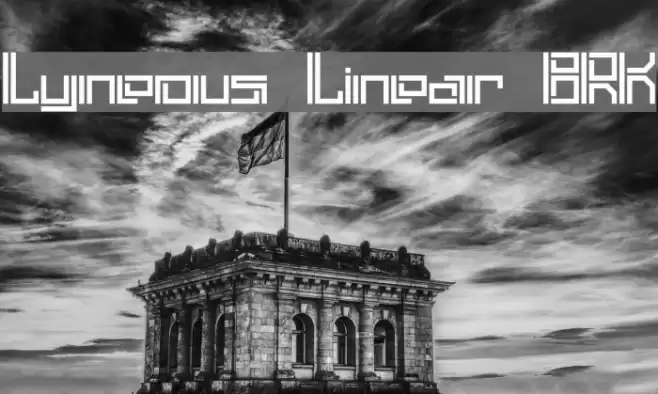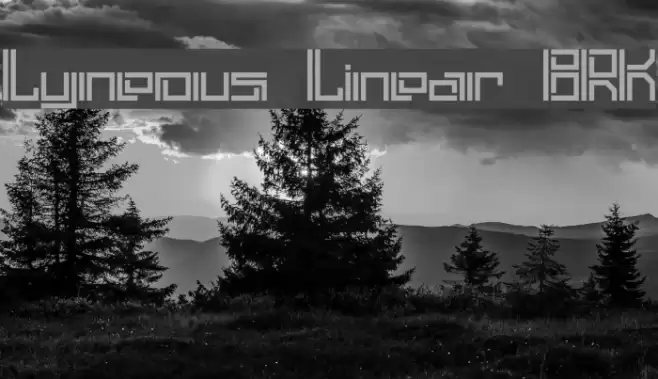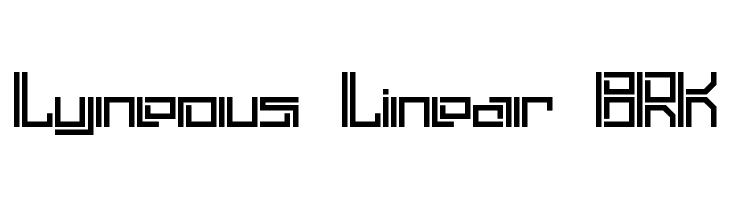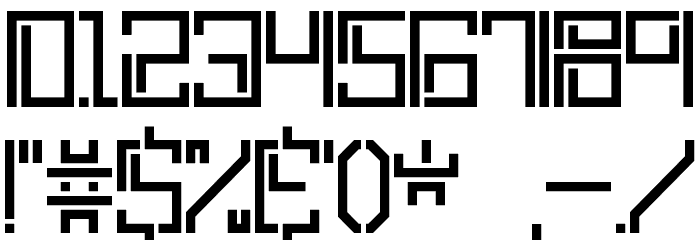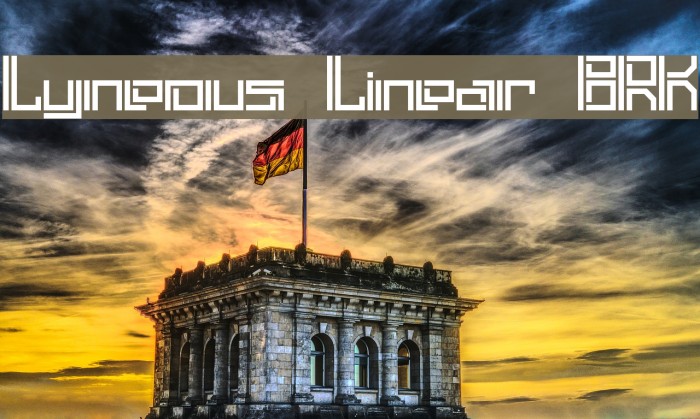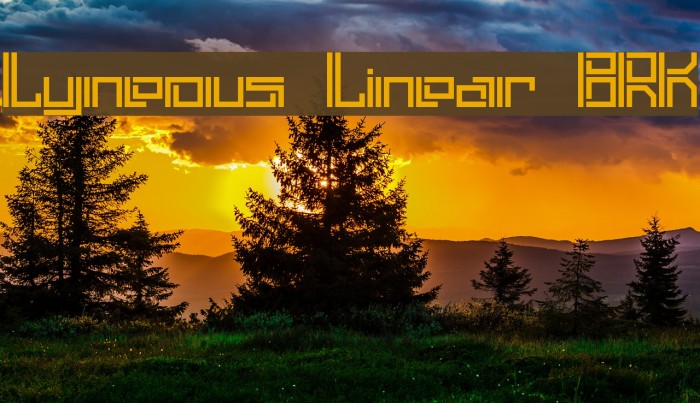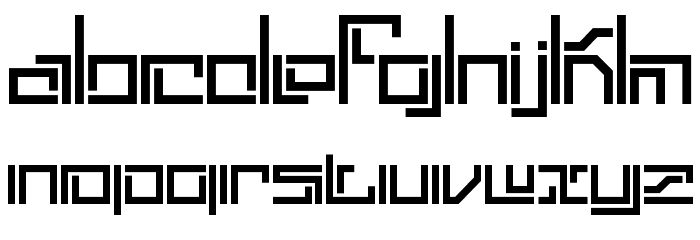
Lyneous Linear BRK Font
Lyneous Linear BRK Description
This font features a geometric and linear design, characterized by its bold, angular lines and structured form. Each character is constructed with a series of straight lines and right angles, creating a futuristic and digital aesthetic. The uppercase and lowercase letters maintain a consistent height, contributing to a uniform appearance. The numerals and special characters follow the same design principles, ensuring cohesion across all glyphs. The font's distinct style makes it highly suitable for modern and tech-oriented projects, where a strong visual impact is desired. Its unique structure and bold presence make it stand out in any design context.
A geometric, linear font with bold, angular lines and a futuristic aesthetic.
- Proposed Projects: Ideal for tech branding, digital interfaces, modern posters, and futuristic designs.